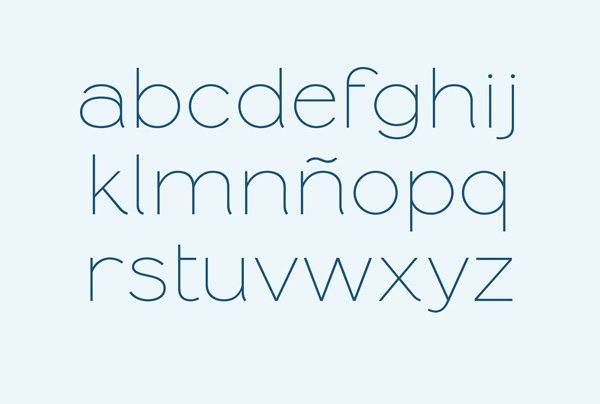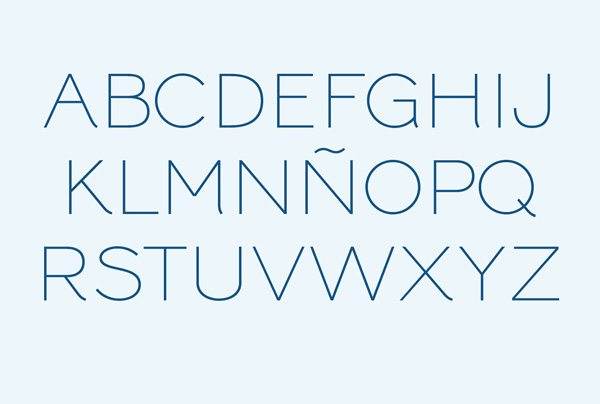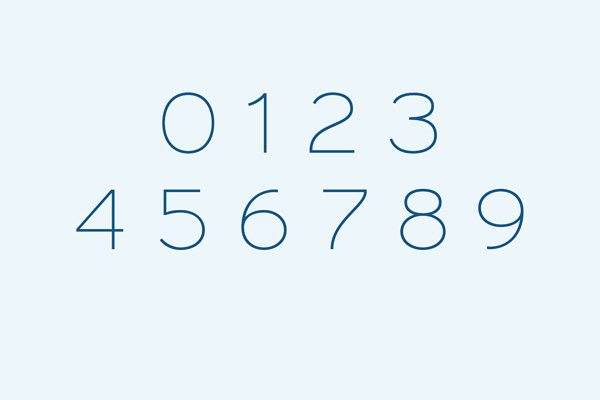
Bolinga Font
Hairline is designed by Francis Poyatos. Geometric display font with one single weight inspired in circular models with a distinguished gesture in his auctions. It’s a professional free font made during a tipography course managed by UnosTiposDuros.